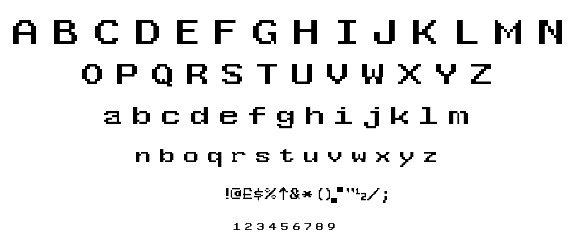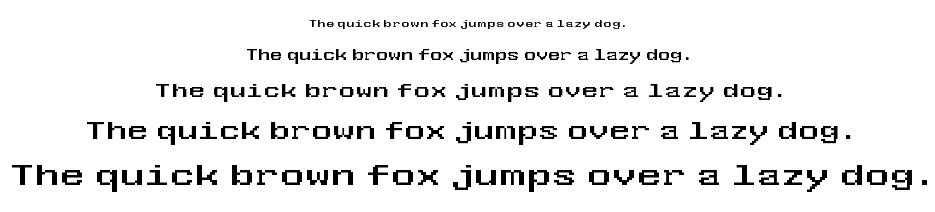
Home » Techno » Square » west england Square west england Kevin Richey May 31, 2012 2 Views 0 SaveSavedRemoved 0 west england Font west_england.ttf Freeware - 1 font file Download 876 downloads Character Mapspecimen sheetwaterfallwest_england.ttf had to do a pixilated one too…